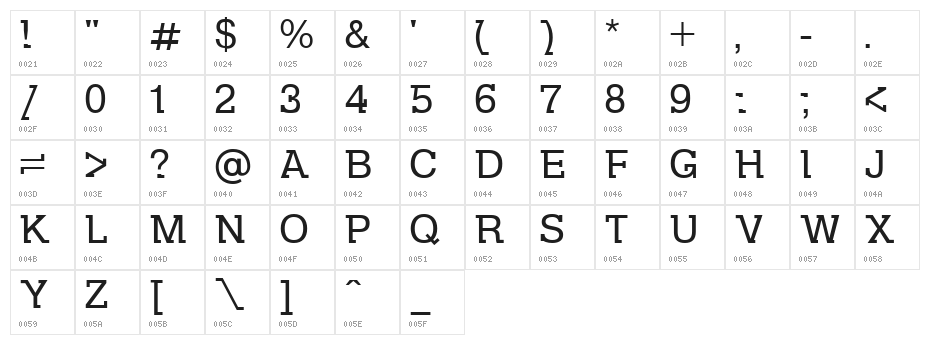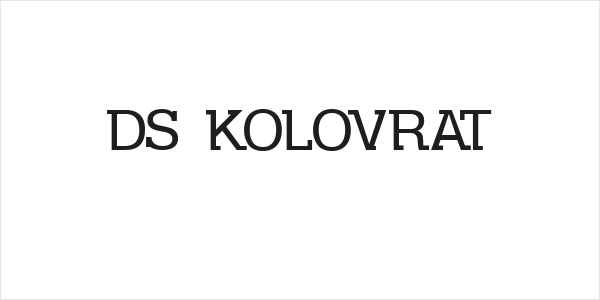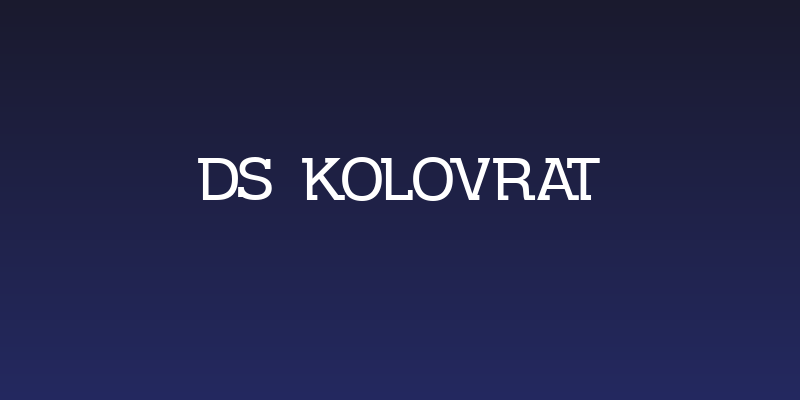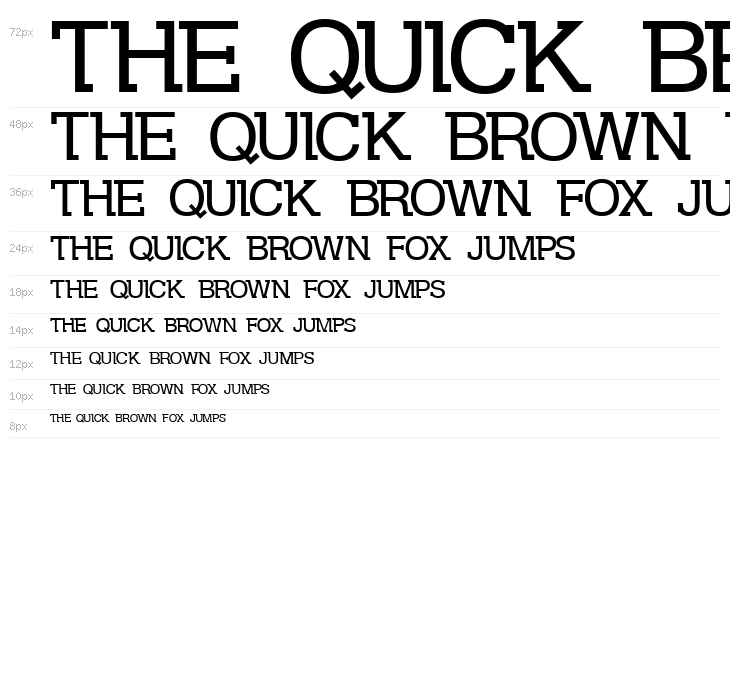
DS Kolovrat Font
DS Kolovrat Description
This font features a bold and structured design with a modern twist. The characters are well-defined with a consistent stroke width, giving it a strong and authoritative presence. The uppercase letters are particularly striking, with a geometric influence that adds a contemporary feel. The numerals are clear and easy to read, making them suitable for both digital and print media. Special characters are included, maintaining the font's cohesive style. Overall, it offers a professional and polished look, ideal for making a statement.